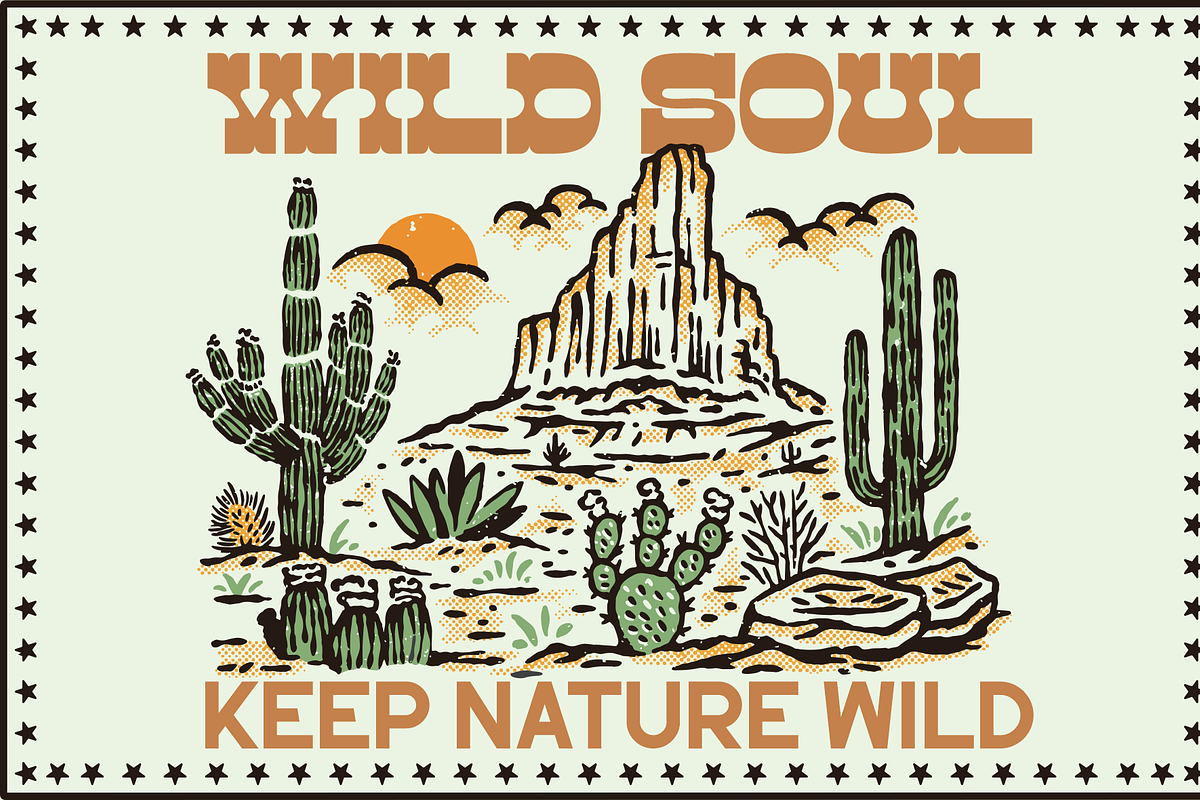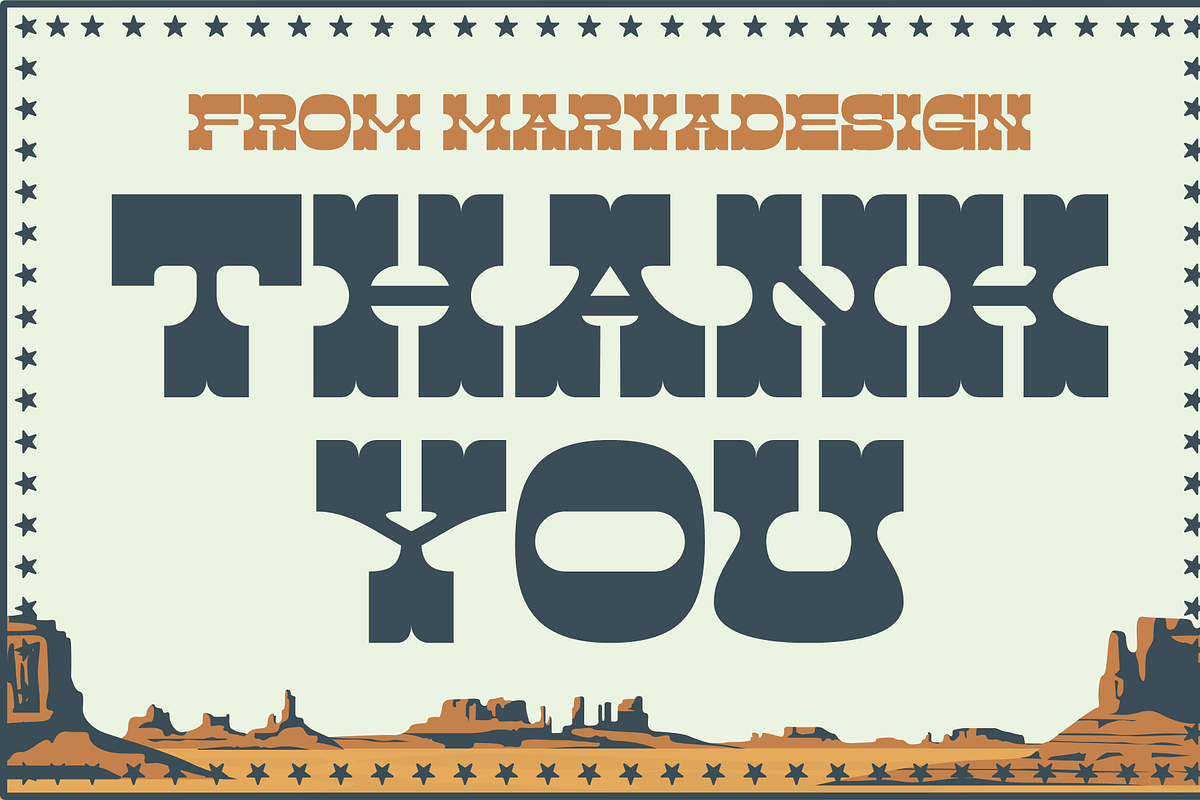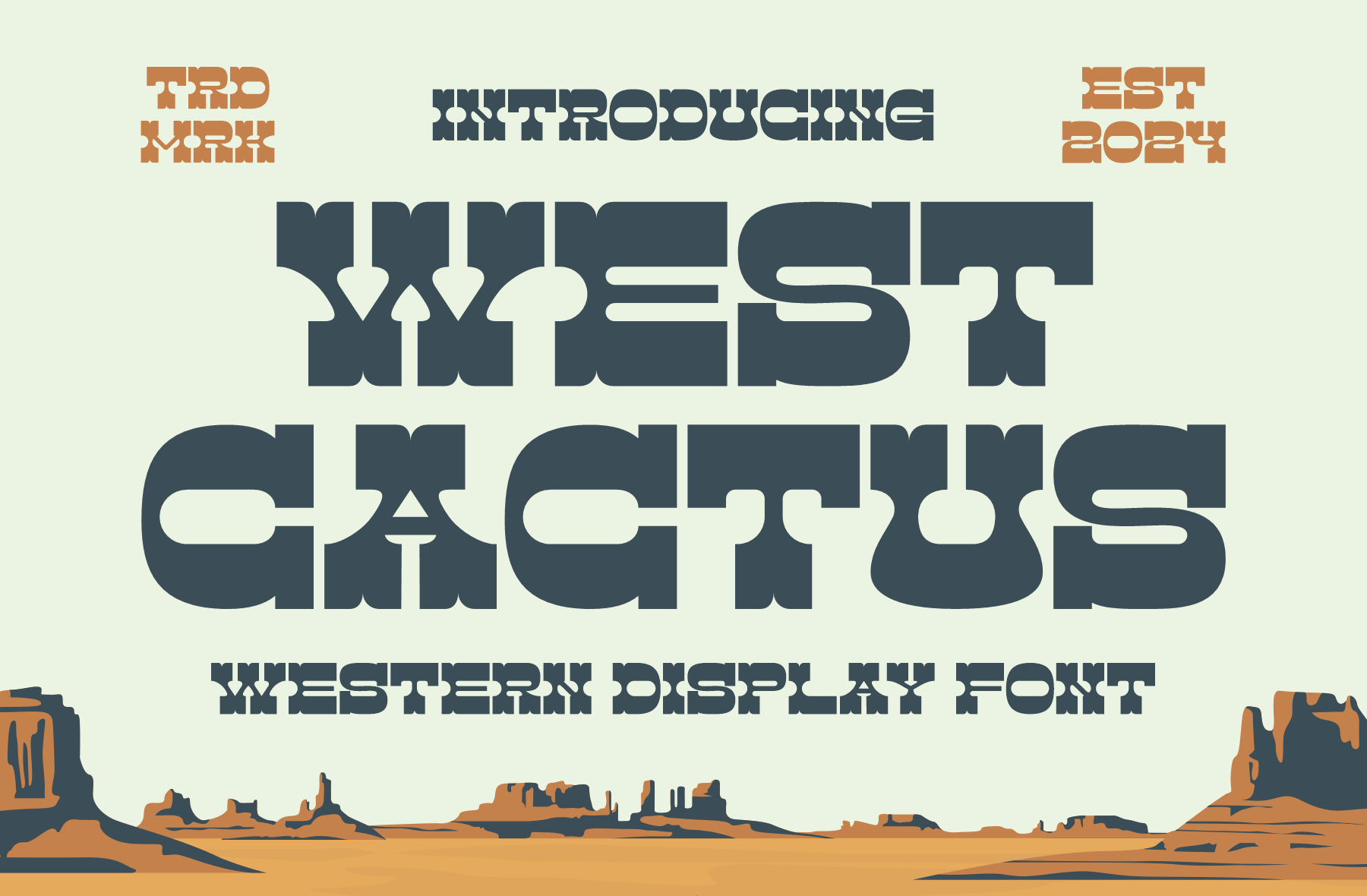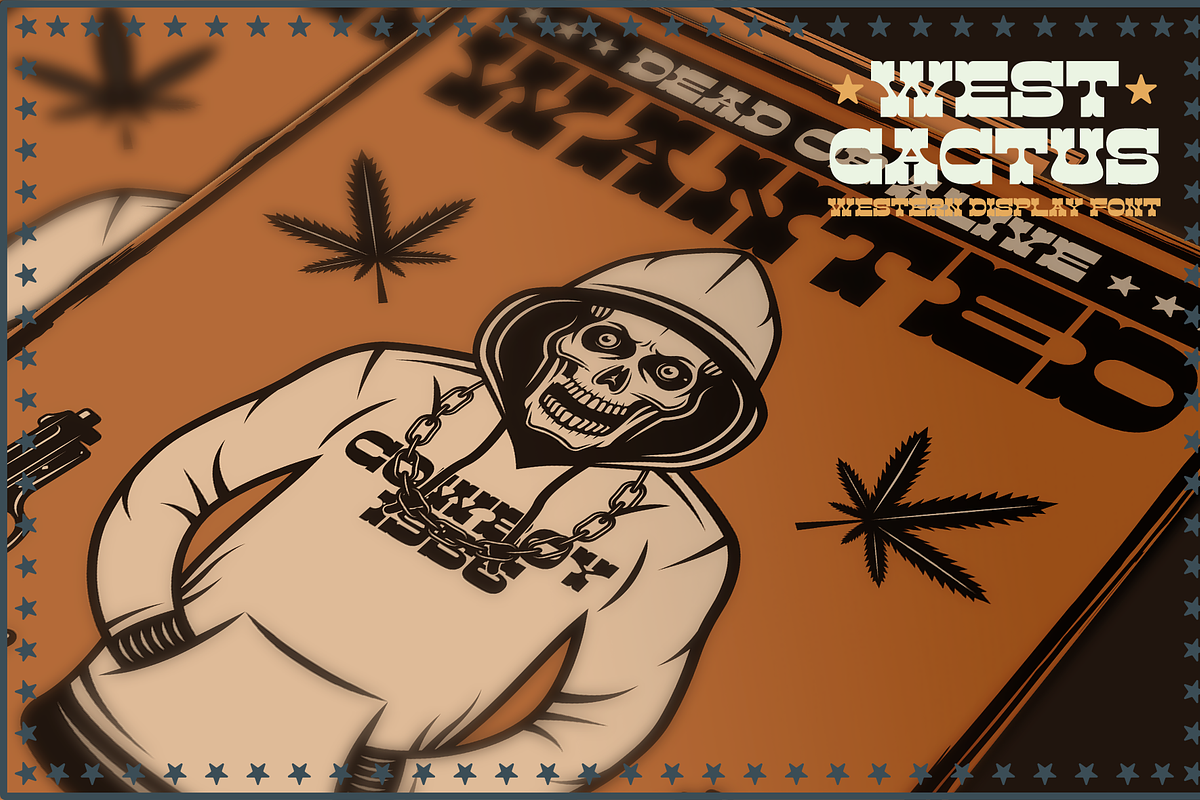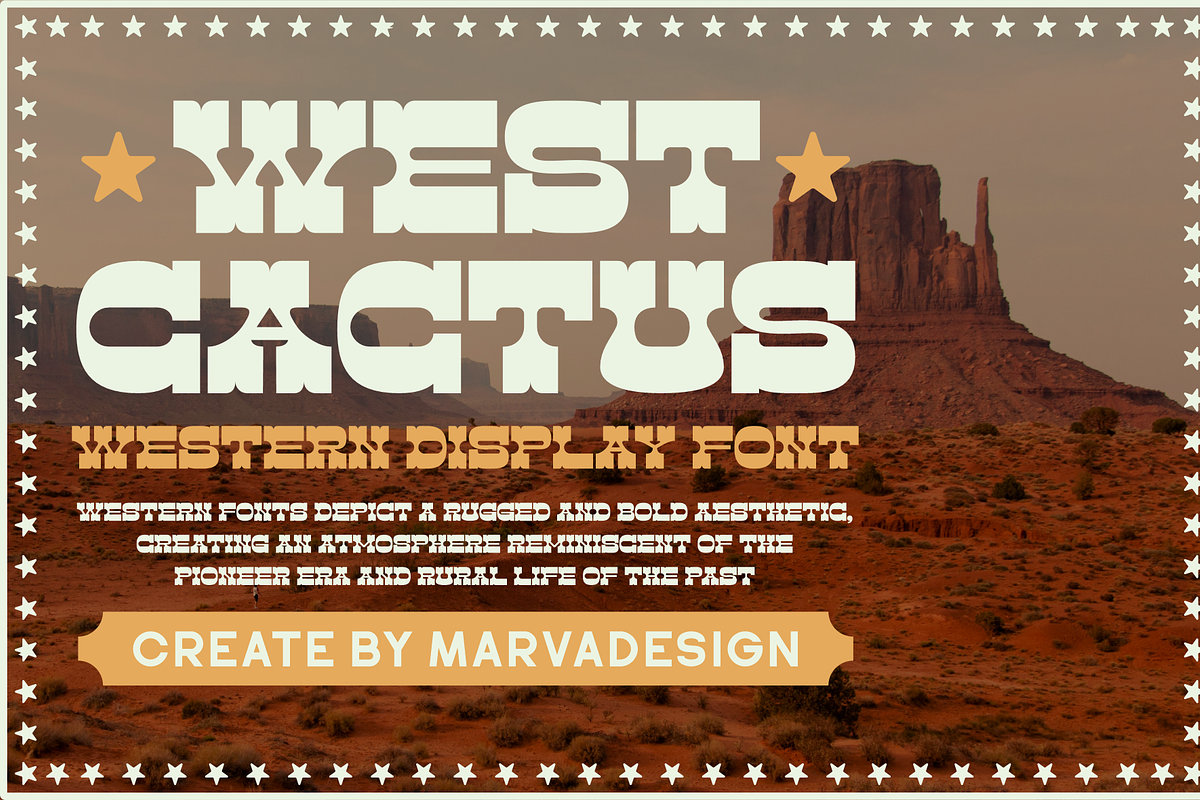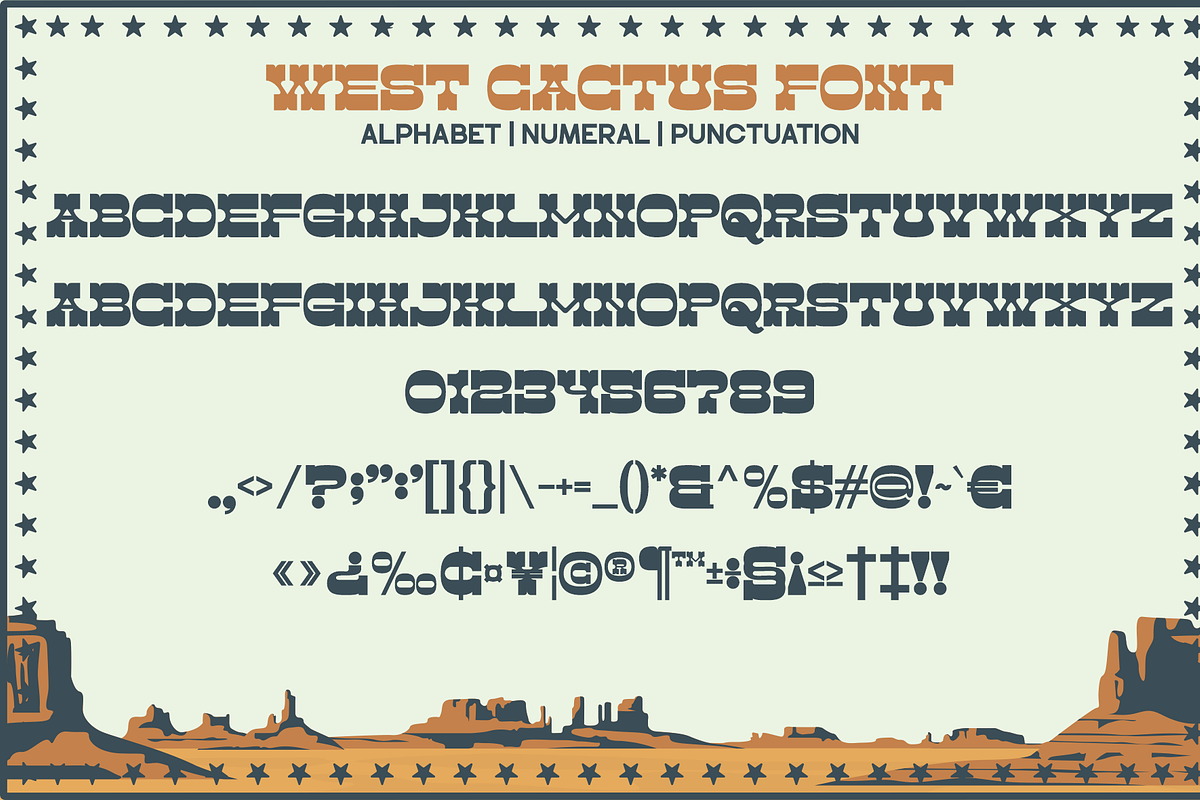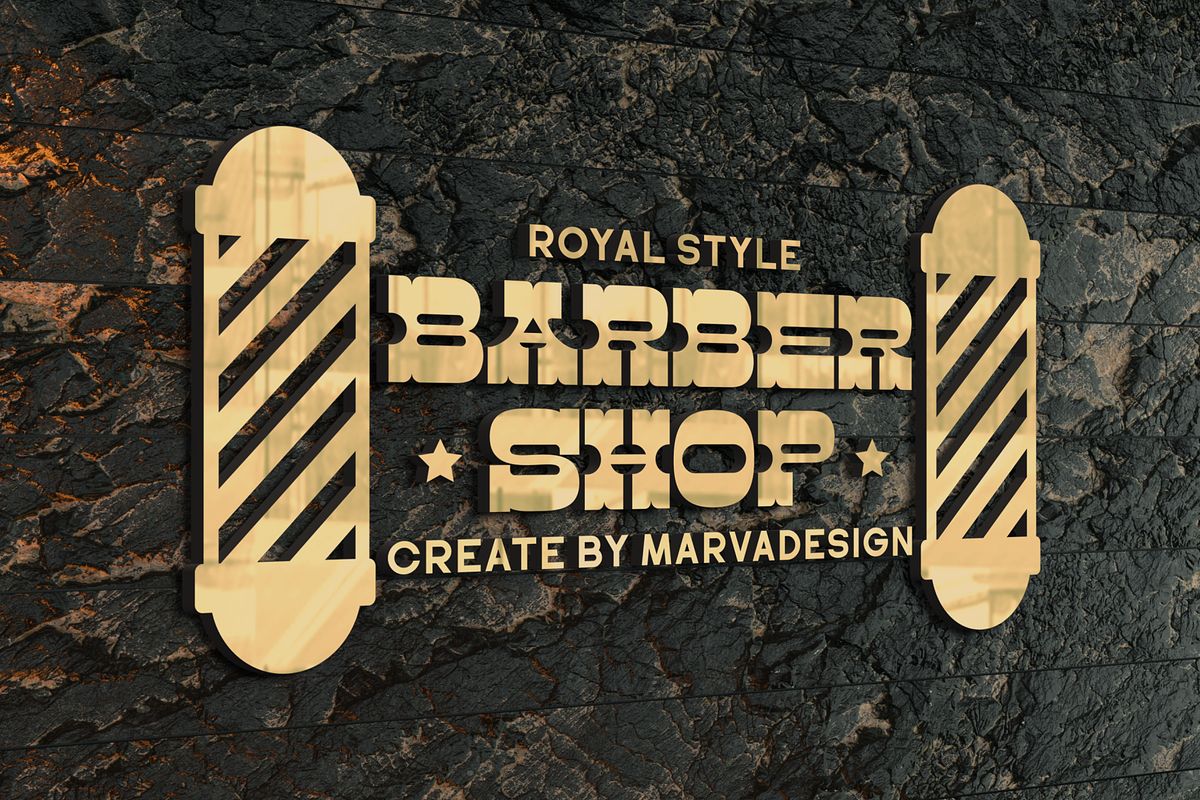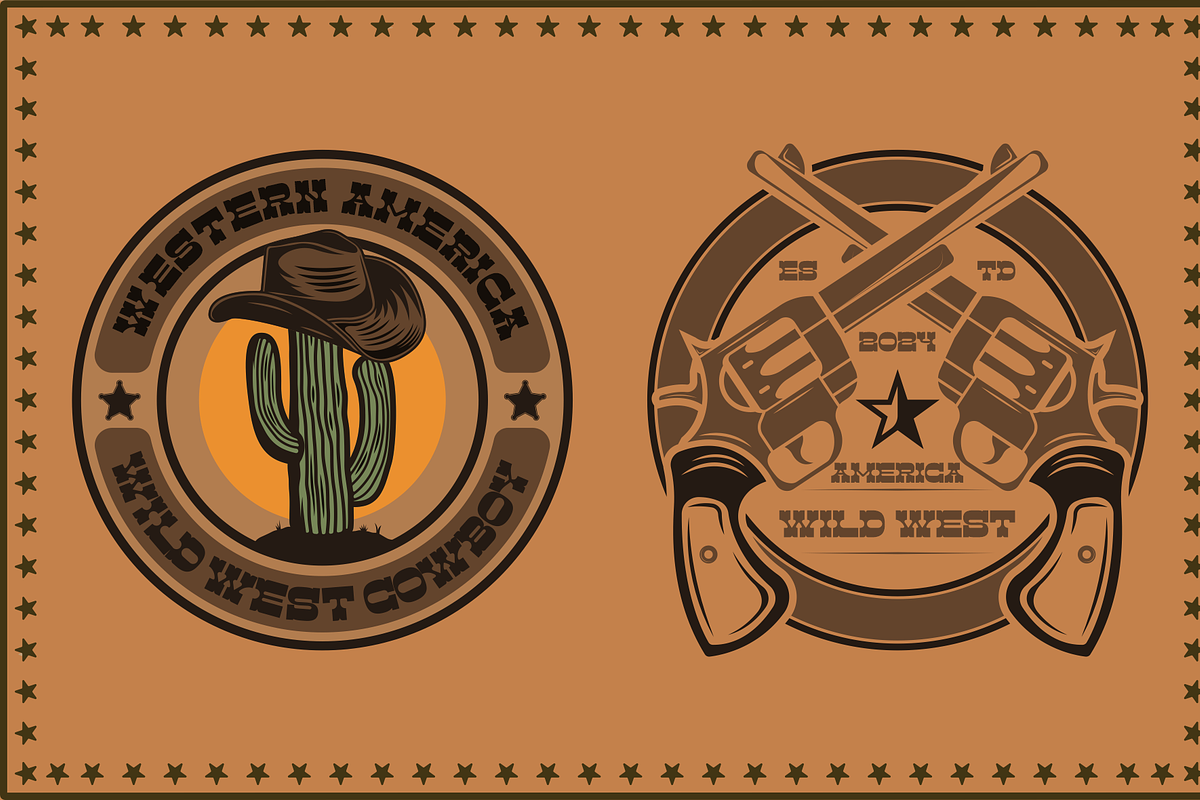
West Cactus - Western Display Font
Introducing West Cactus Western Serif font that encapsulates the rugged spirit of the Old West. With its bold, slab-serif letterforms and subtle serifs reminiscent of cowboy boot spurs, this typeface evokes the essence of the untamed frontier. Each character in Frontier Trails is crafted with precision, embodying the strength and resilience of the cowboy lifestyle. The sturdy, yet slightly weathered appearance of the letters adds a rustic charm, as if they were hand-carved on a wooden sign outside a saloon in a dusty town.